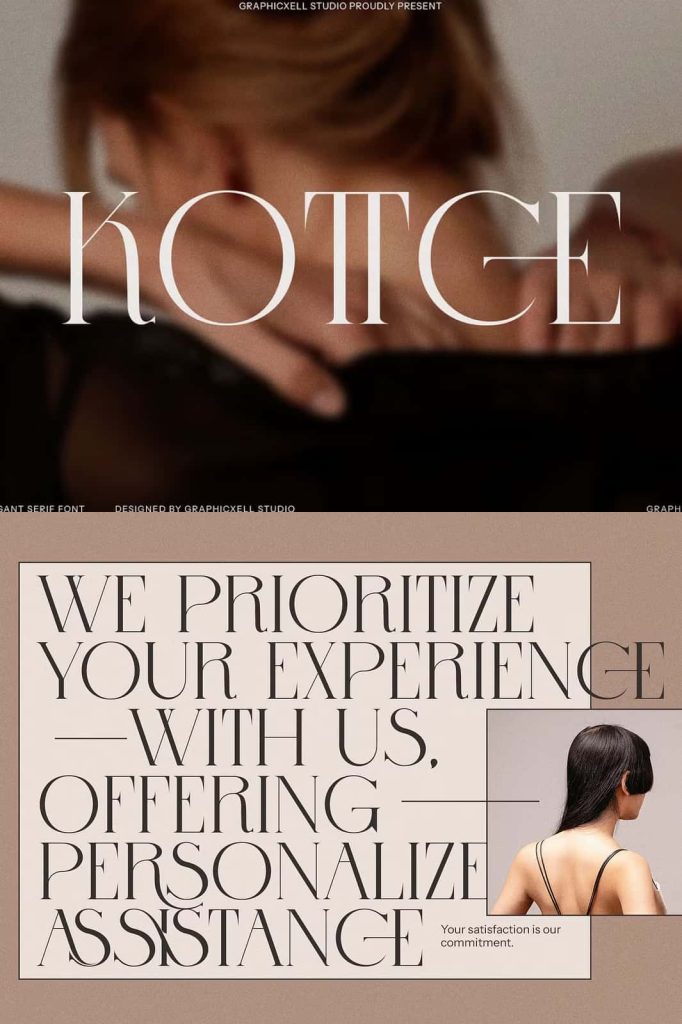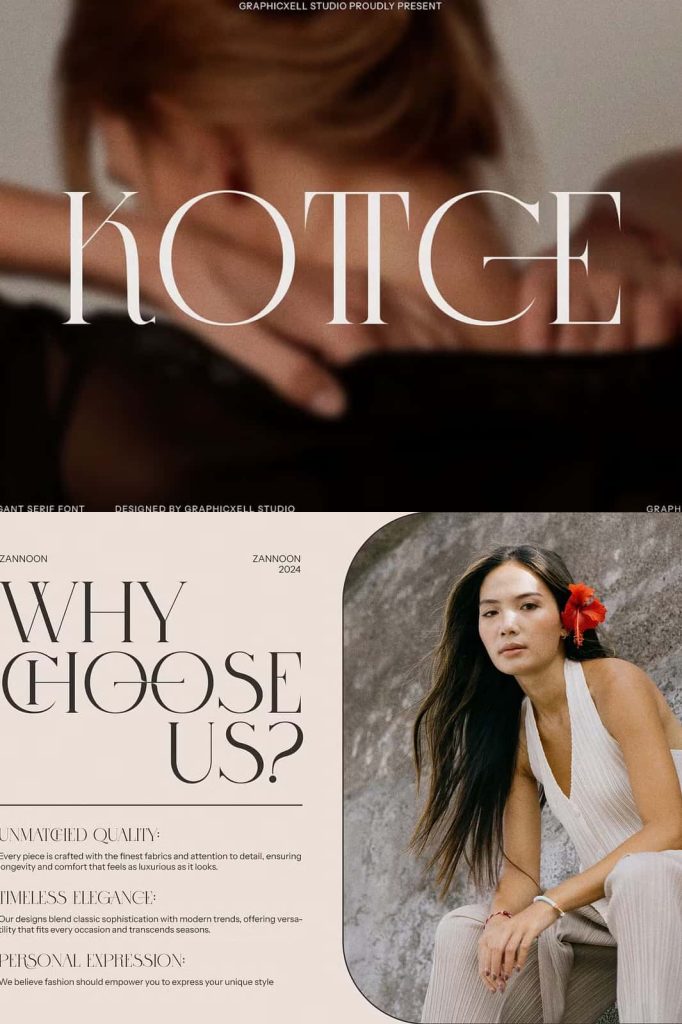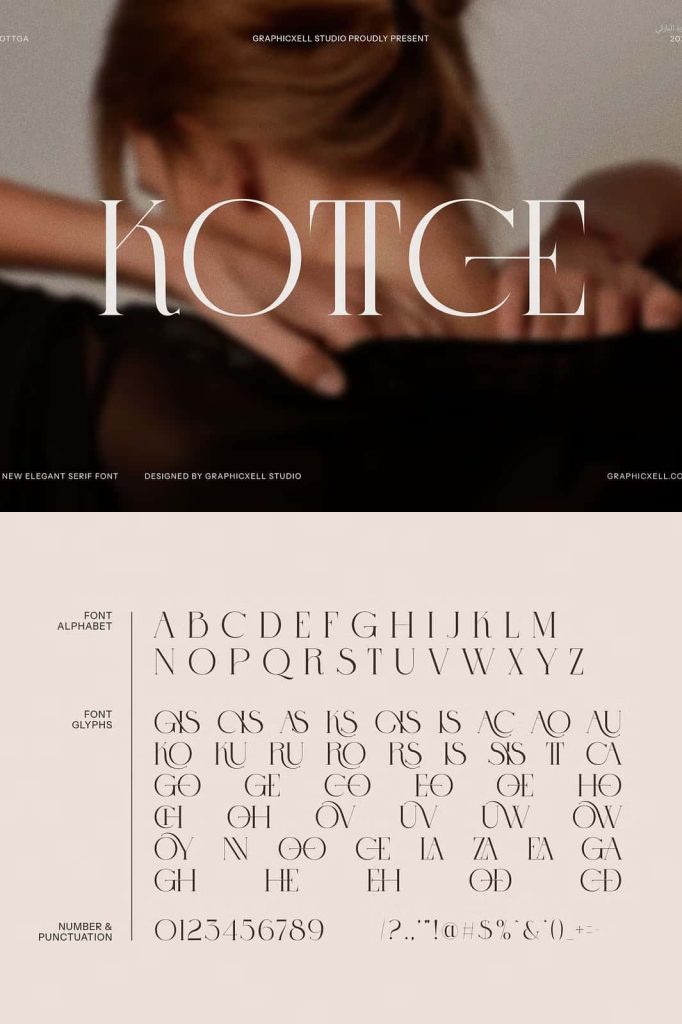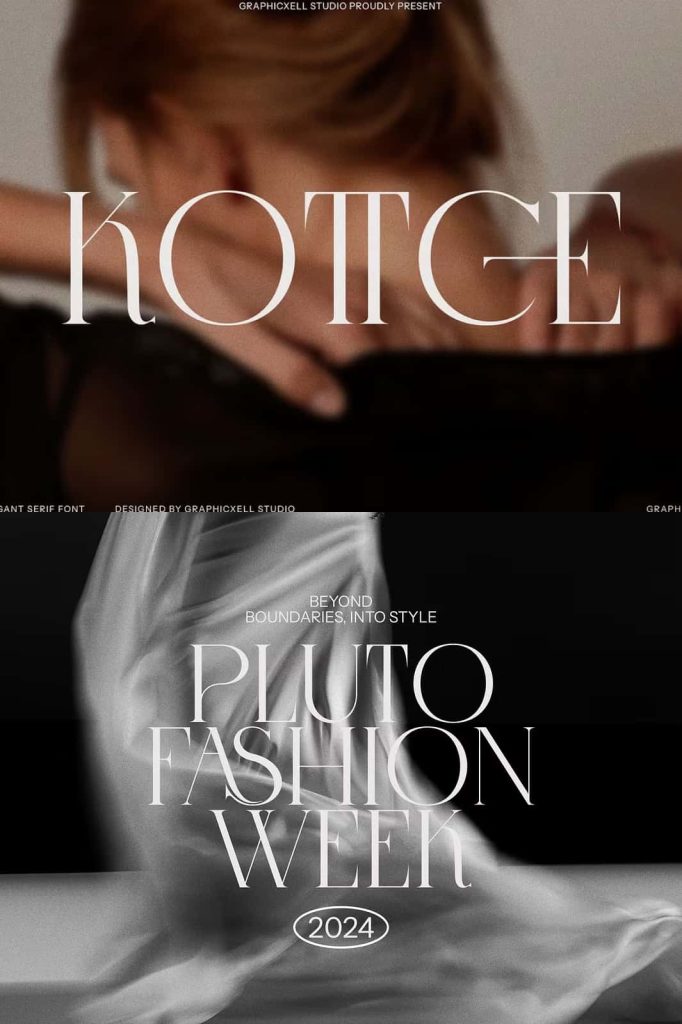
Kottce Elegant Serif Font Typeface is a new serif font that comes with a bold writing style. It looks simple, making the font appropriate for a formal design. The first thing that commands attention is the boldness, creating a strong presence. With its robust quality, this brings a great value to your project